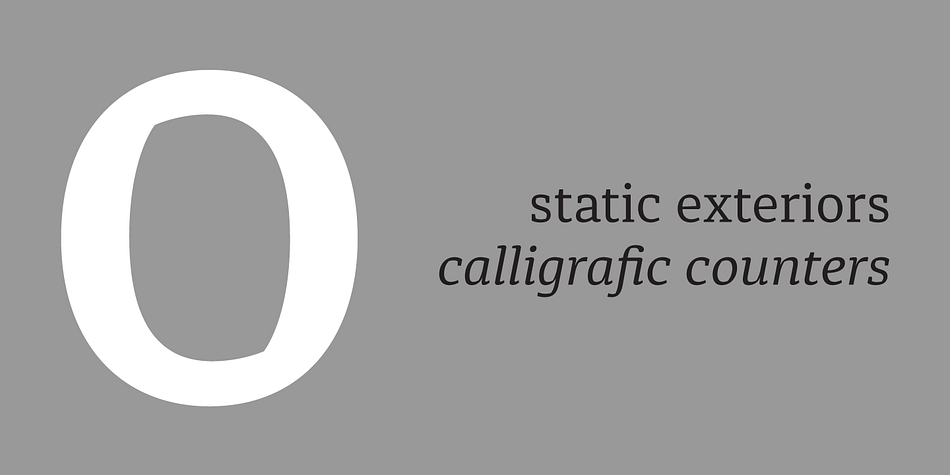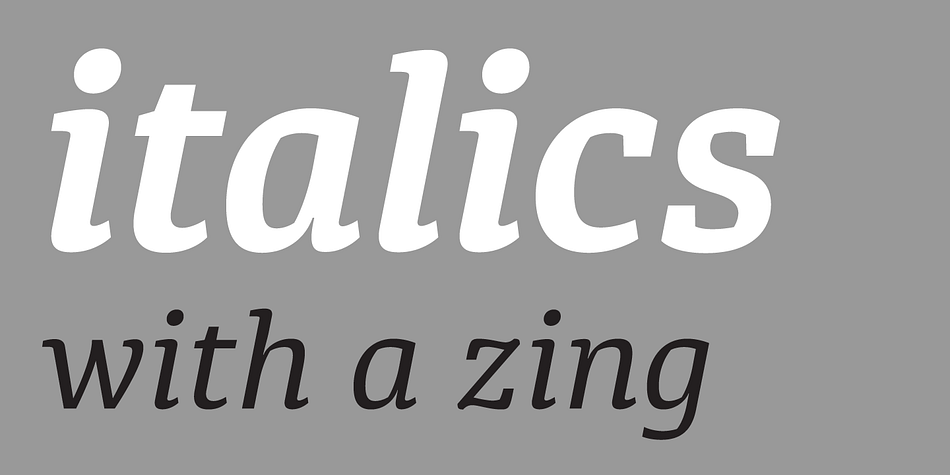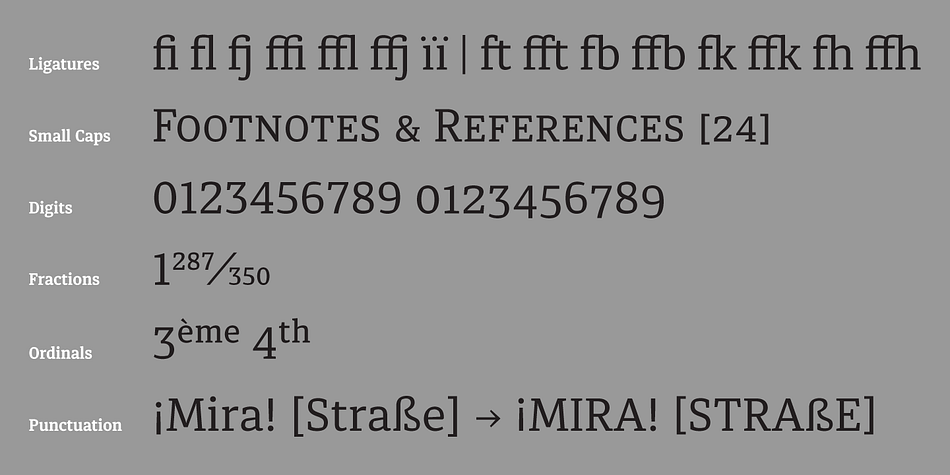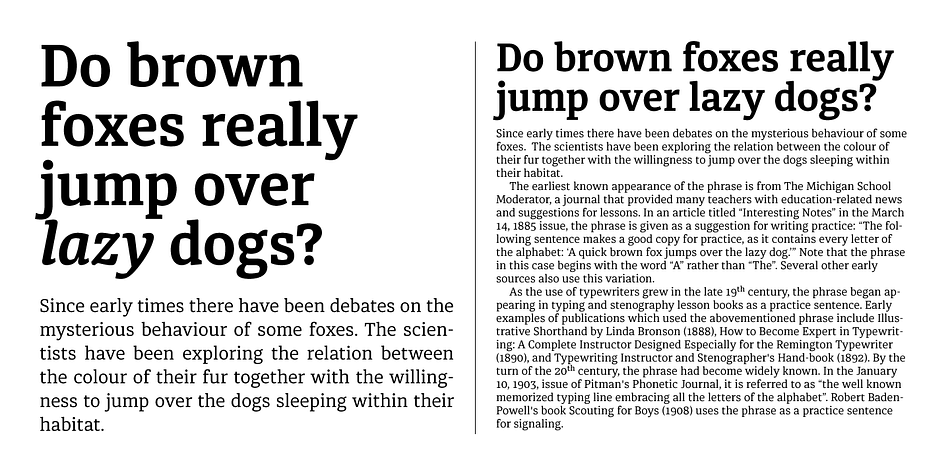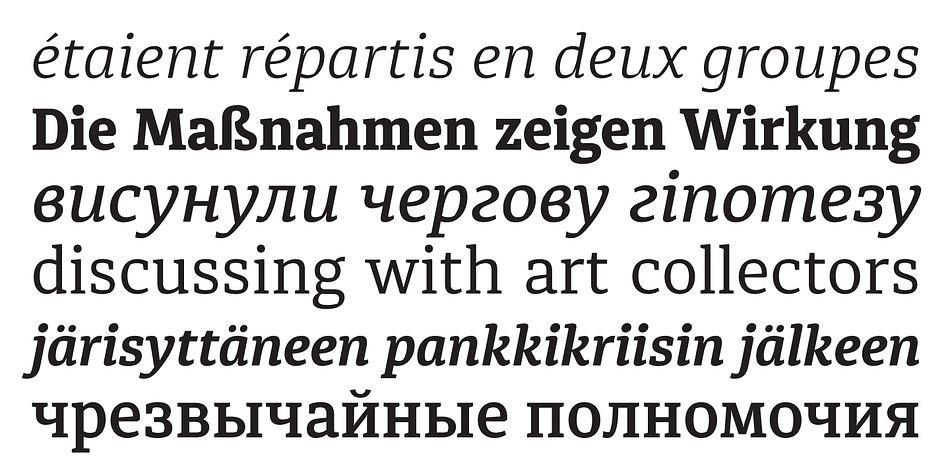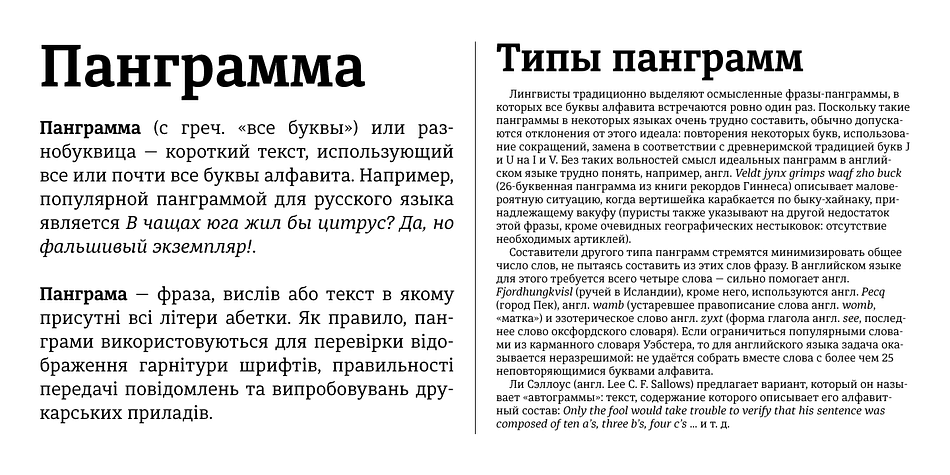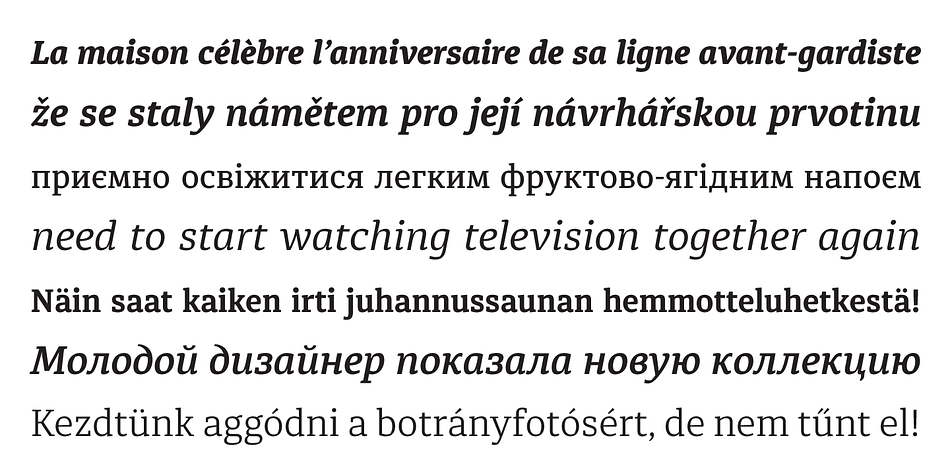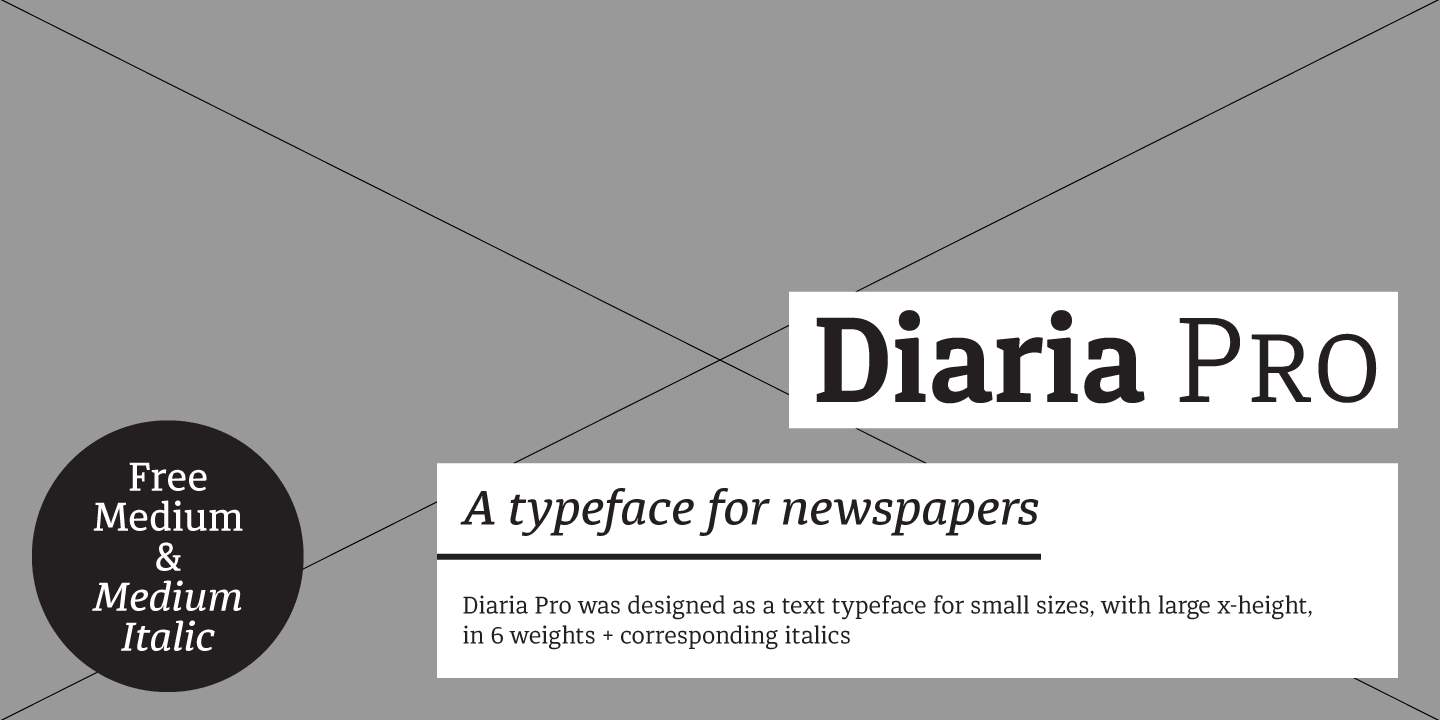
Diaria Pro is a serif and slab serif font family. This typeface has twelve styles and was published by Mint Type.
Diaria started as a project in Typeface Architecture for Master in Advanced Typograghy at EINA, Centre Universitari de Disseny i Art de Barcelona, a course tutored by Laura Meseguer and Íñigo Jerez Quintana. Later it has developed into Diaria Pro, an extensive typeface including Cyrillic script, small caps, and various OpenType features.
Diaria Pro is a low-contrast serif typeface designed as a primary text face for the newspapers. Its large x-height and static exteriors allow comfortable reading in narrow columns, and calligraphic counters as well as dynamic serifs add humanist detail to overall perception and incline contrast axis without affecting interletter counterforms.
Besides extensive language support, Diaria Pro includes various OpenType features: ligatures, discretionary ligatures, small caps, 6 sets of digits, superiors, inferiors, fractions, ordinals, upper-case punctuation, and some language-specific features.